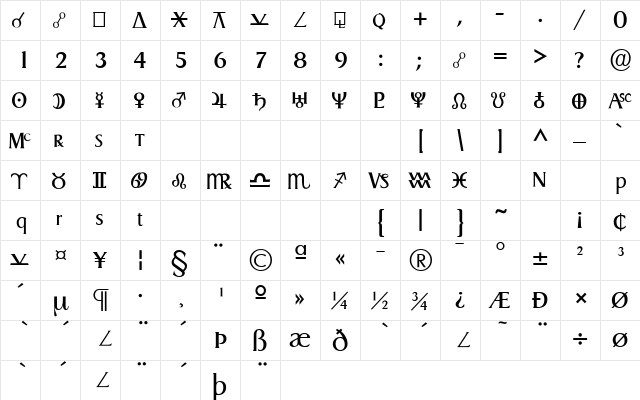
AstroGadget Regular
| Designer | Jason Davies |
Design Context for AstroGadget Typeface
AstroGadget offers clean, dependable letterforms without strong stylistic allegiance, making it a practical choice for designers who need flexibility.